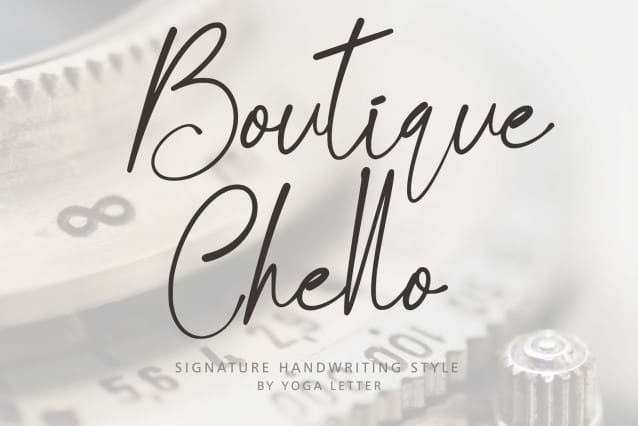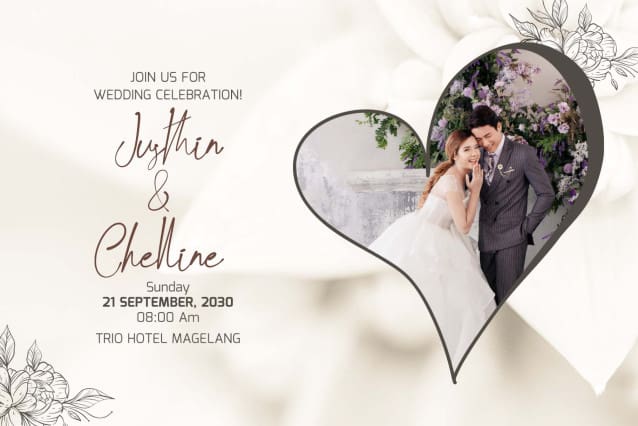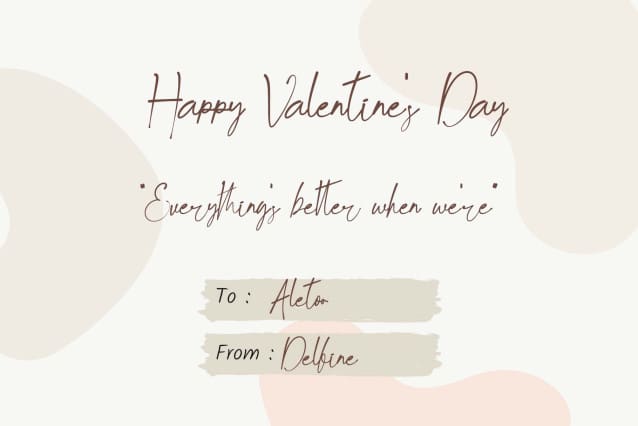
Boutique Chello Font
Boutique Chello Font is a signature handwritten font. It comes with capital letters, lowercase letters, signature, numbers, punctuation, and multilingual support. Perfect for invitations, weddings, Christmas, winter, Valentine’s, birthdays, Thanksgiving, posters, summer, spring, and more.